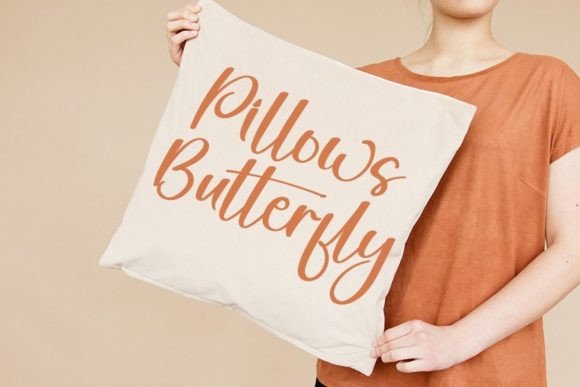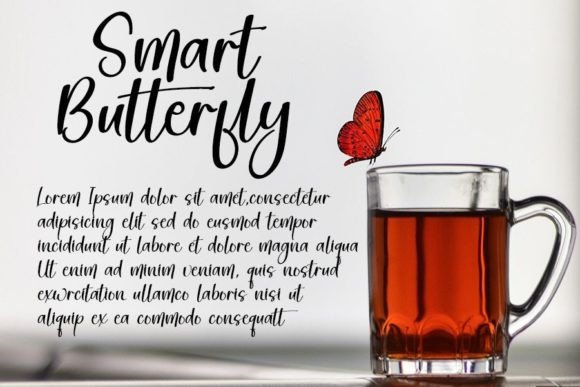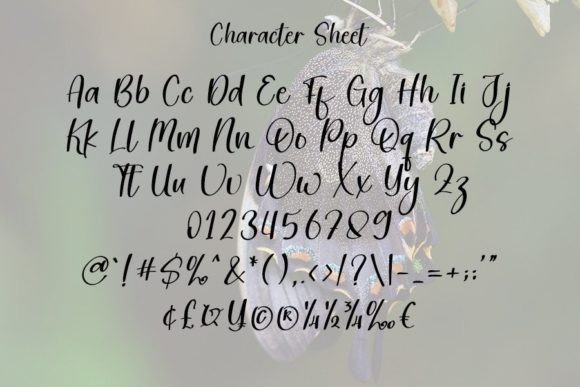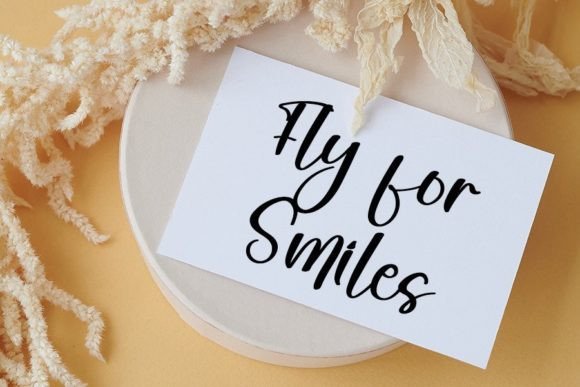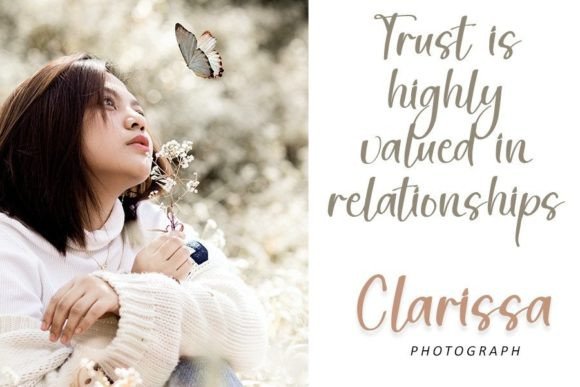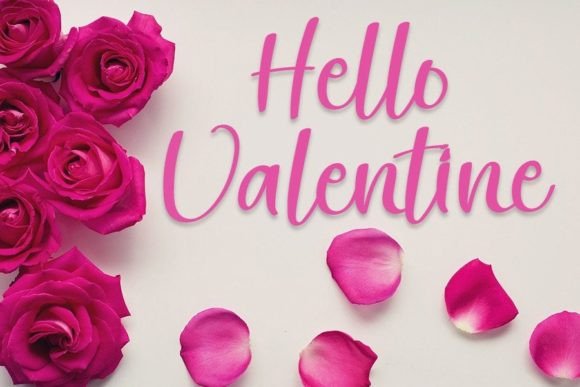
The Butterfly Effect: How a Stylish Handwritten Font Can Transform Your Designs
I’ll never forget the time I was working on a project for a client who wanted a elegant, yet modern look. I had spent hours browsing through font libraries, but nothing seemed quite right. That was until I stumbled upon the Butterfly font. Its stylish, handwritten aesthetic and impeccable form immediately caught my attention. I knew right then and there that it was the perfect fit for my project.
A First Impression: What I Love About Butterfly Font
The Butterfly font has quickly become one of my go-to fonts for a variety of design projects. Here are just a few things that I love about it:
• ✨ Timeless classic calligraphy inspiration: The Butterfly font takes its cues from traditional calligraphy, giving it a sophisticated and elegant feel.
• ✅ Balanced and varied: The font’s balanced and varied letterforms make it perfect for use in a wide range of design projects, from invitations and greeting cards to branding and advertising materials.
• 💫 Contemporary atmosphere: Despite its classic inspiration, the Butterfly font has a distinctly modern feel that will help your designs stand out.
A Few Quirks to Keep in Mind
While the Butterfly font is an excellent choice for many design projects, there are a few quirks to keep in mind:
• 🤔 Limited use in body text: While the Butterfly font is beautiful, it’s not the best choice for long blocks of body text. Its elegant, cursive style is better suited to headings and titles.
• ⚠️ Some glyphs may require manual adjustment: As with any font, you may need to manually adjust some glyphs to get the best results. This is especially true when using OpenType features and stylistic alternates.
The Butterfly font was designed with the goal of creating a beautiful, elegant script font that would inspire creativity and sophistication. Its designer drew inspiration from timeless classic calligraphy, combining traditional techniques with modern sensibilities to create a truly unique font.
Is the Butterfly font suitable for body text? While the Butterfly font is beautiful, it’s not the best choice for long blocks of body text. Its elegant, cursive style is better suited to headings and titles.
Does the Butterfly font support OpenType features? Yes, the Butterfly font supports OpenType features, including glyphs and stylistic alternates.